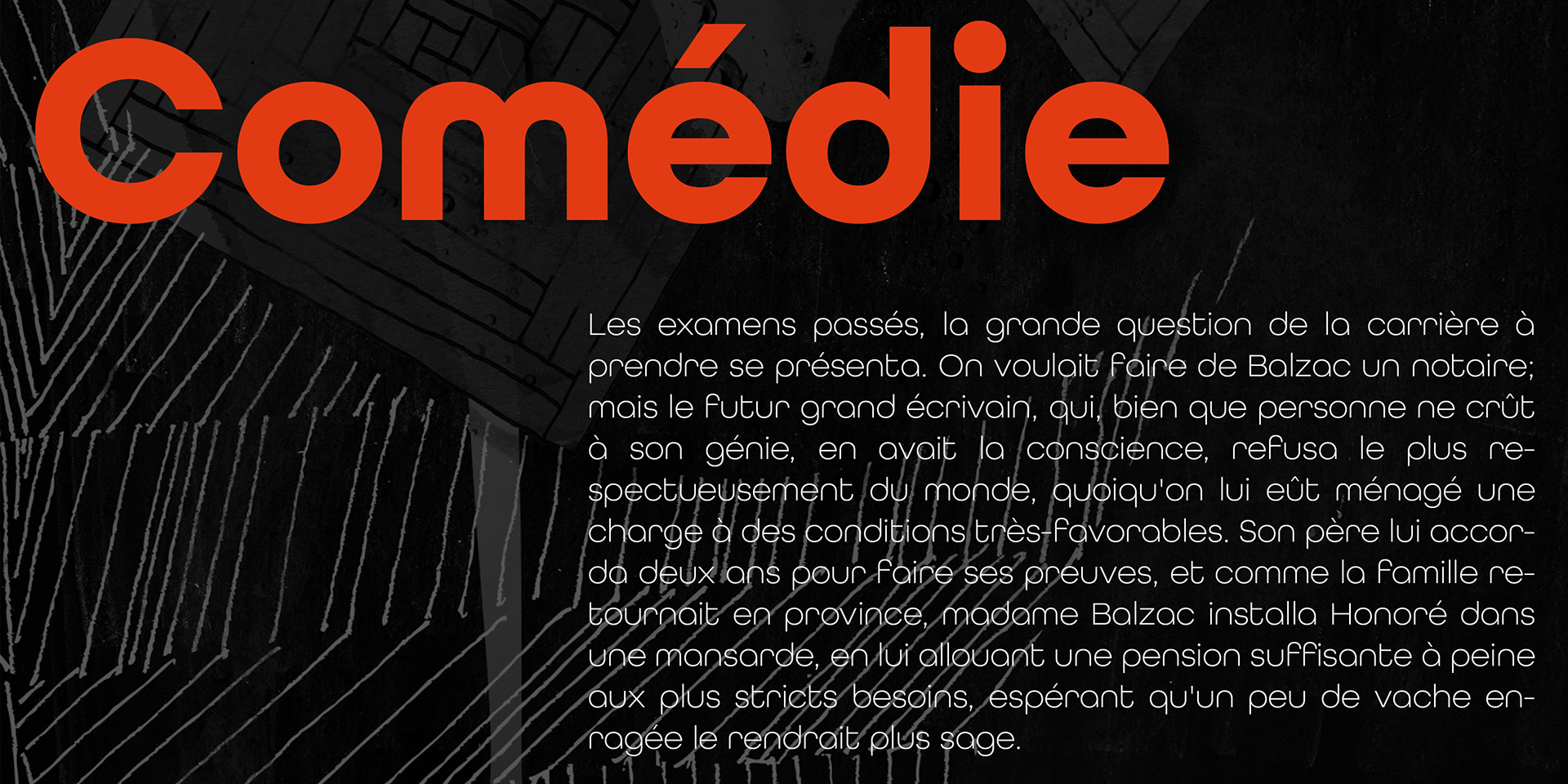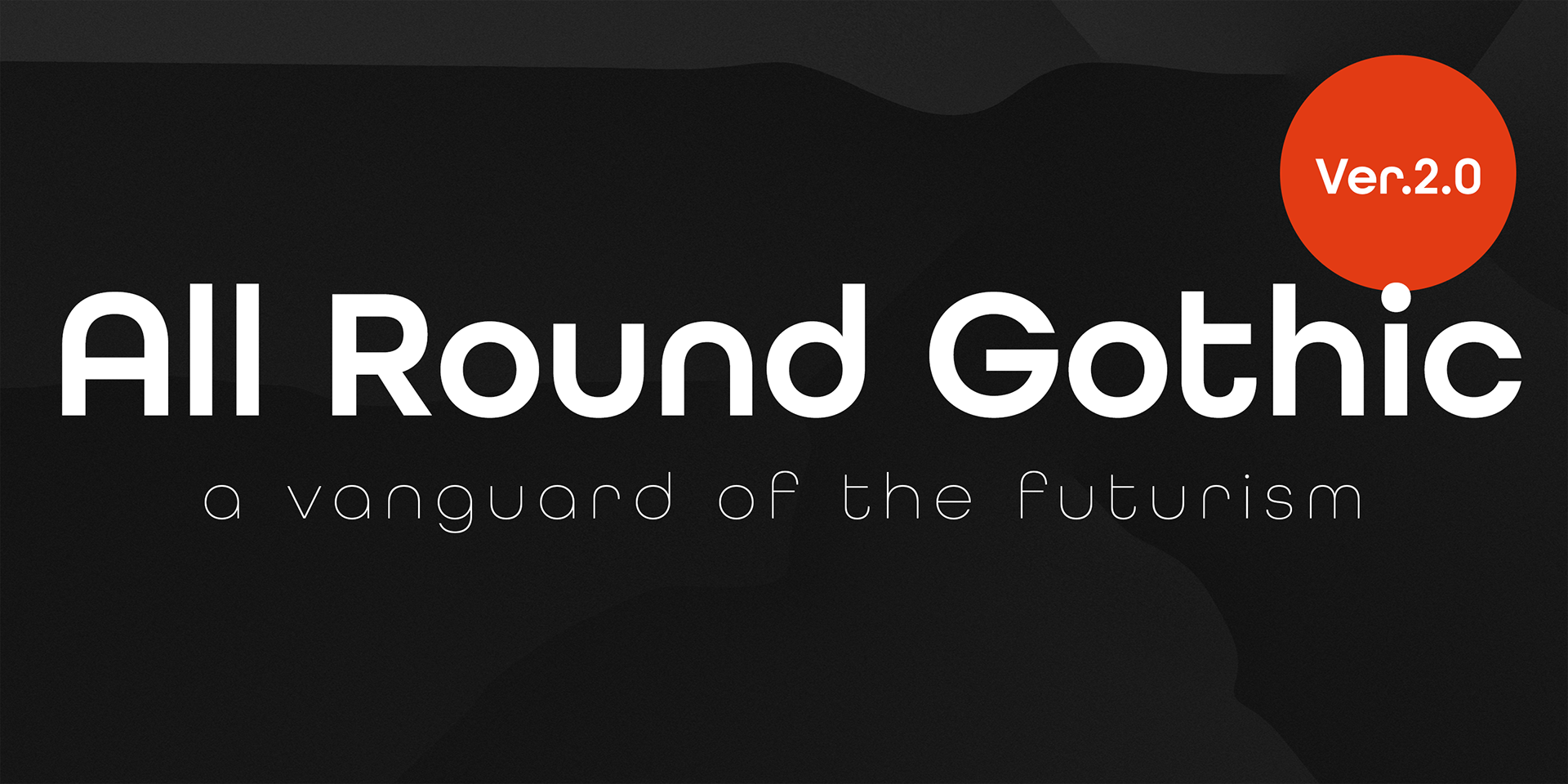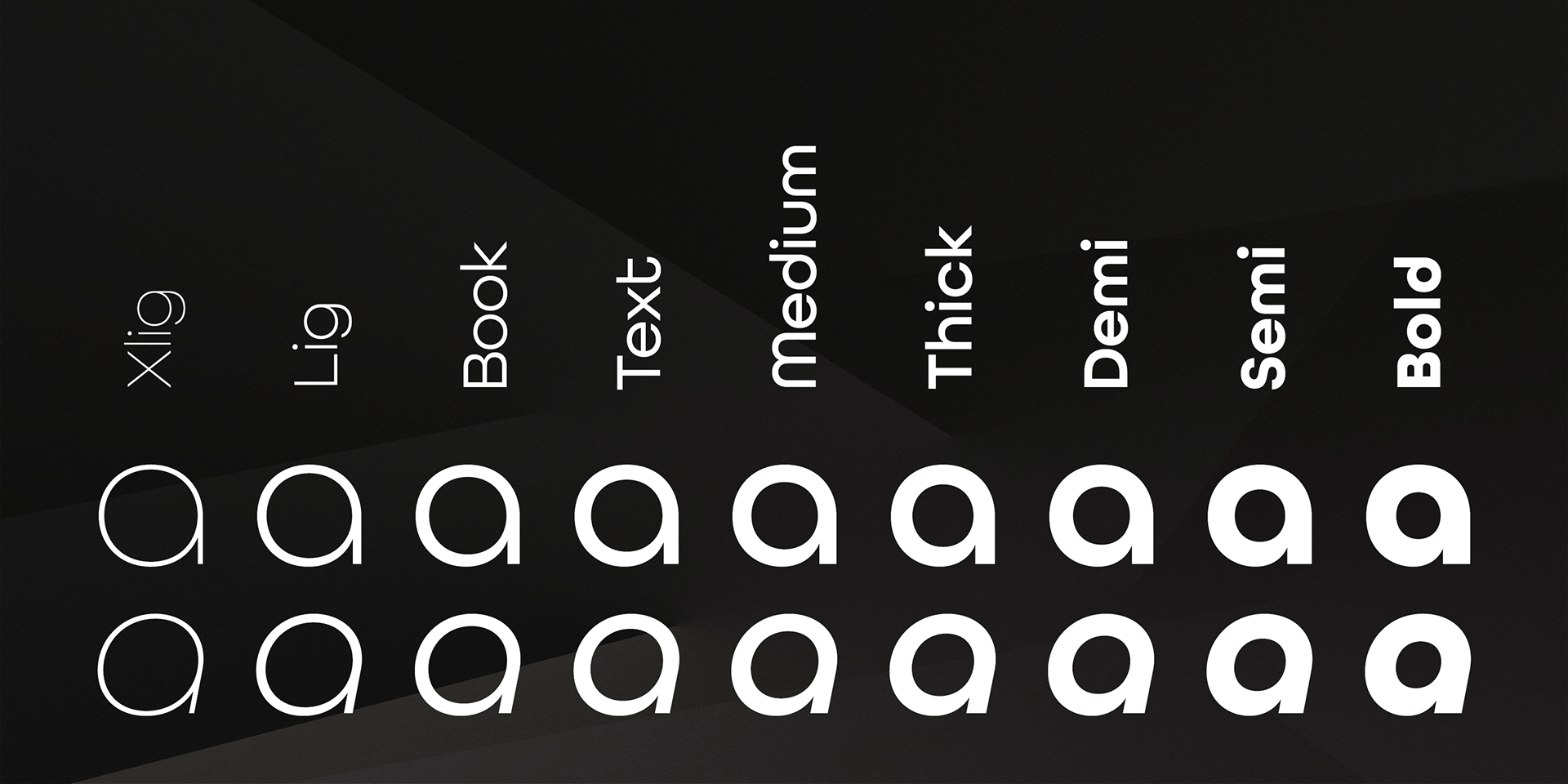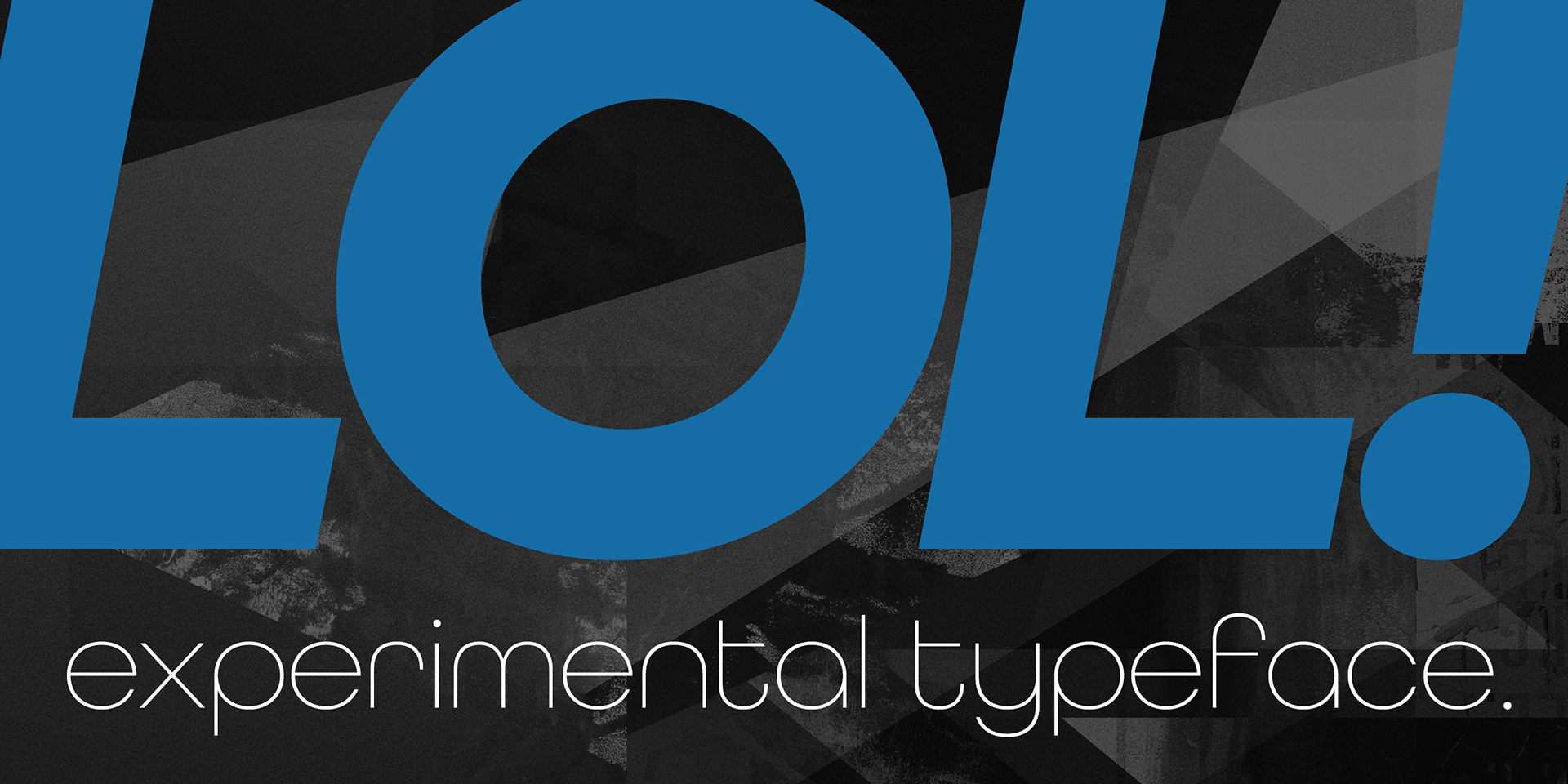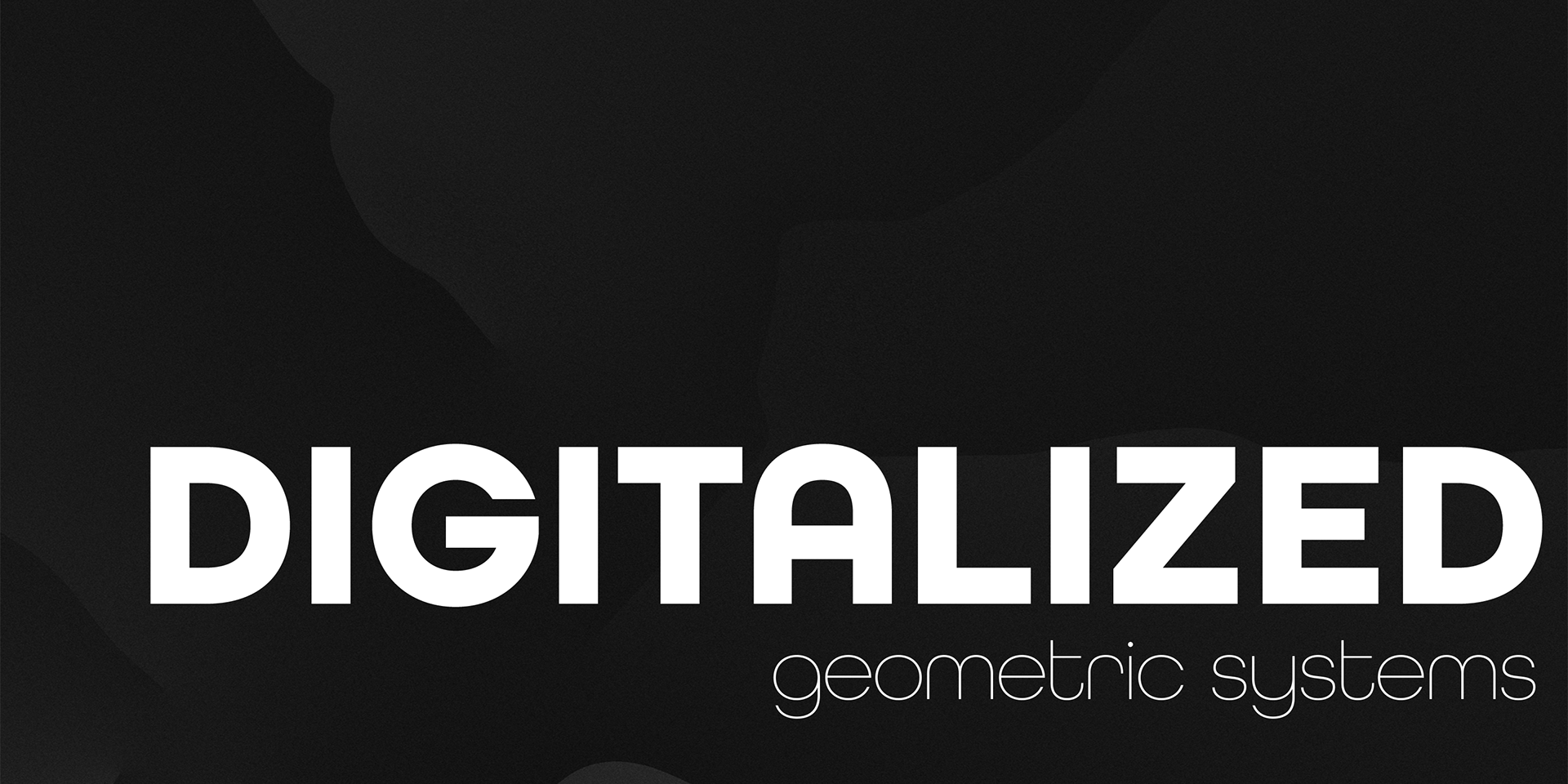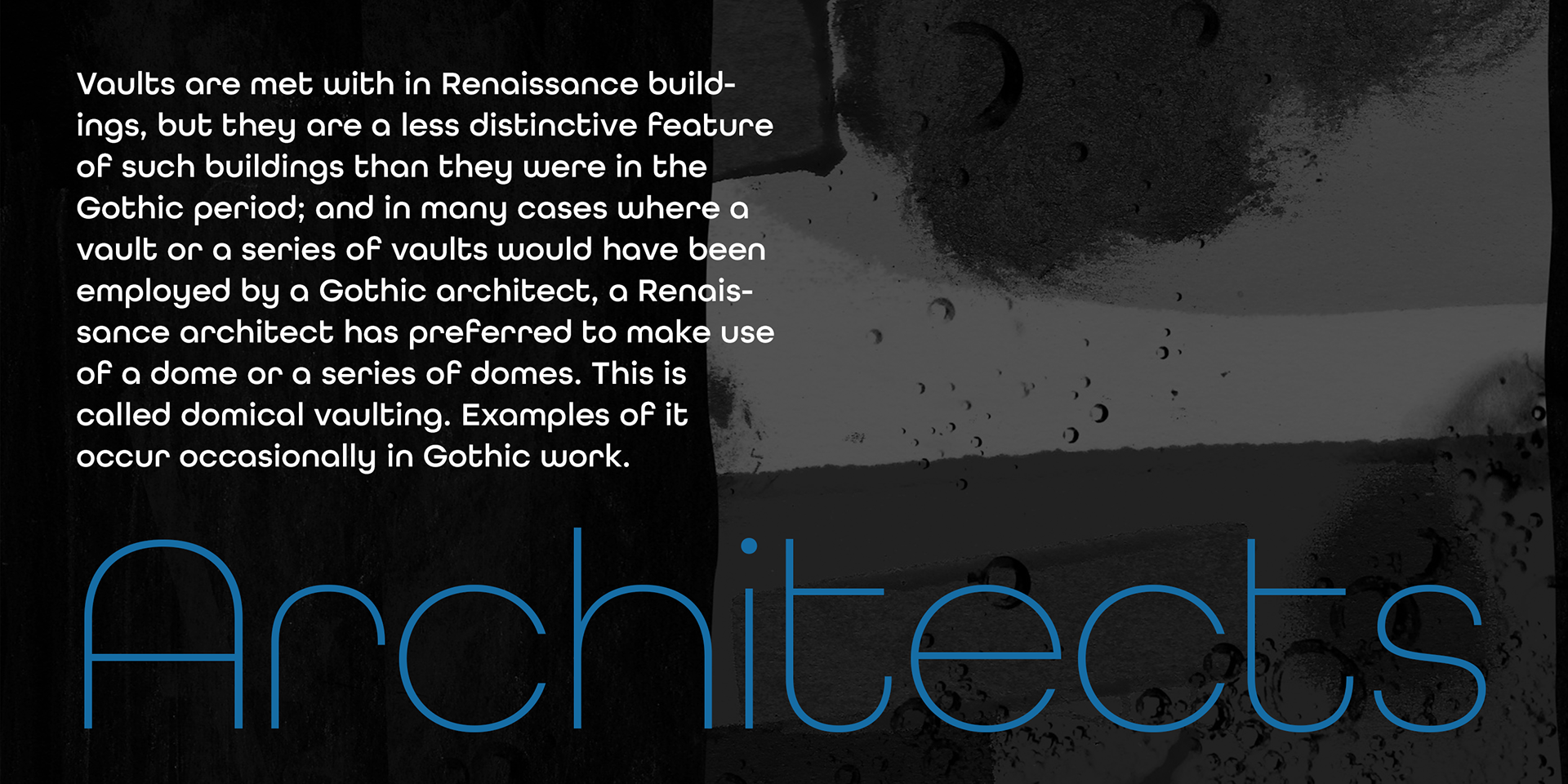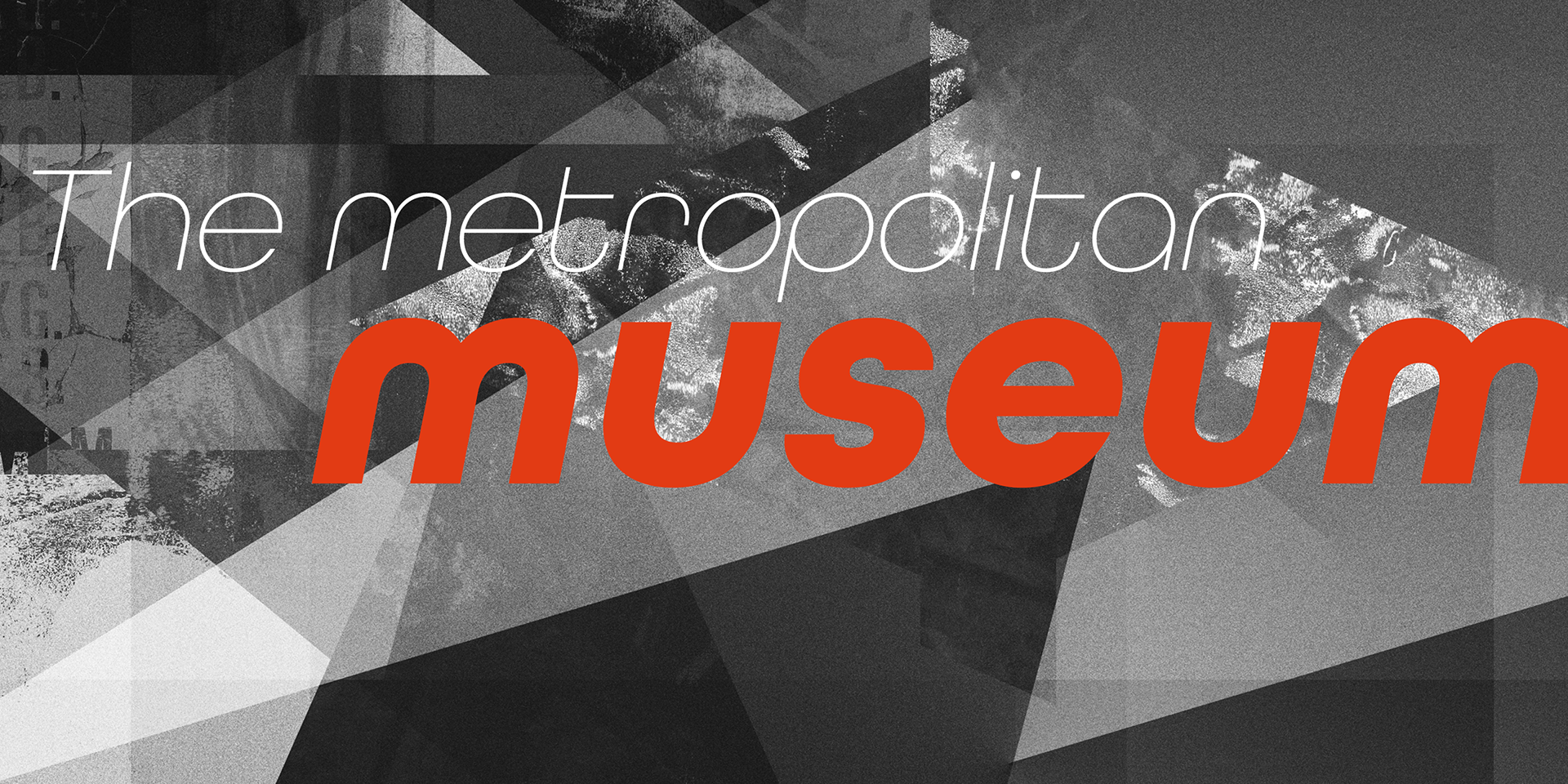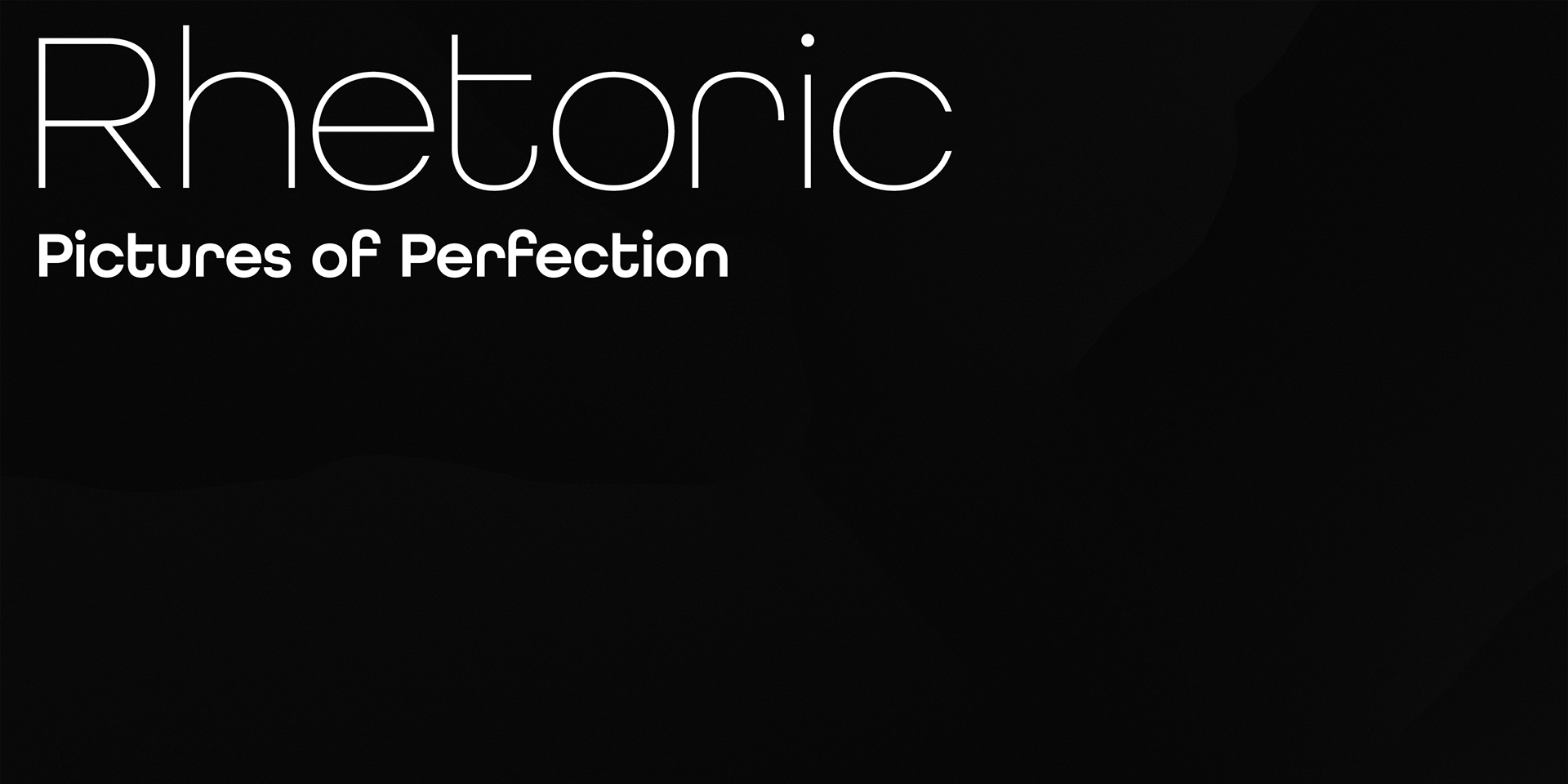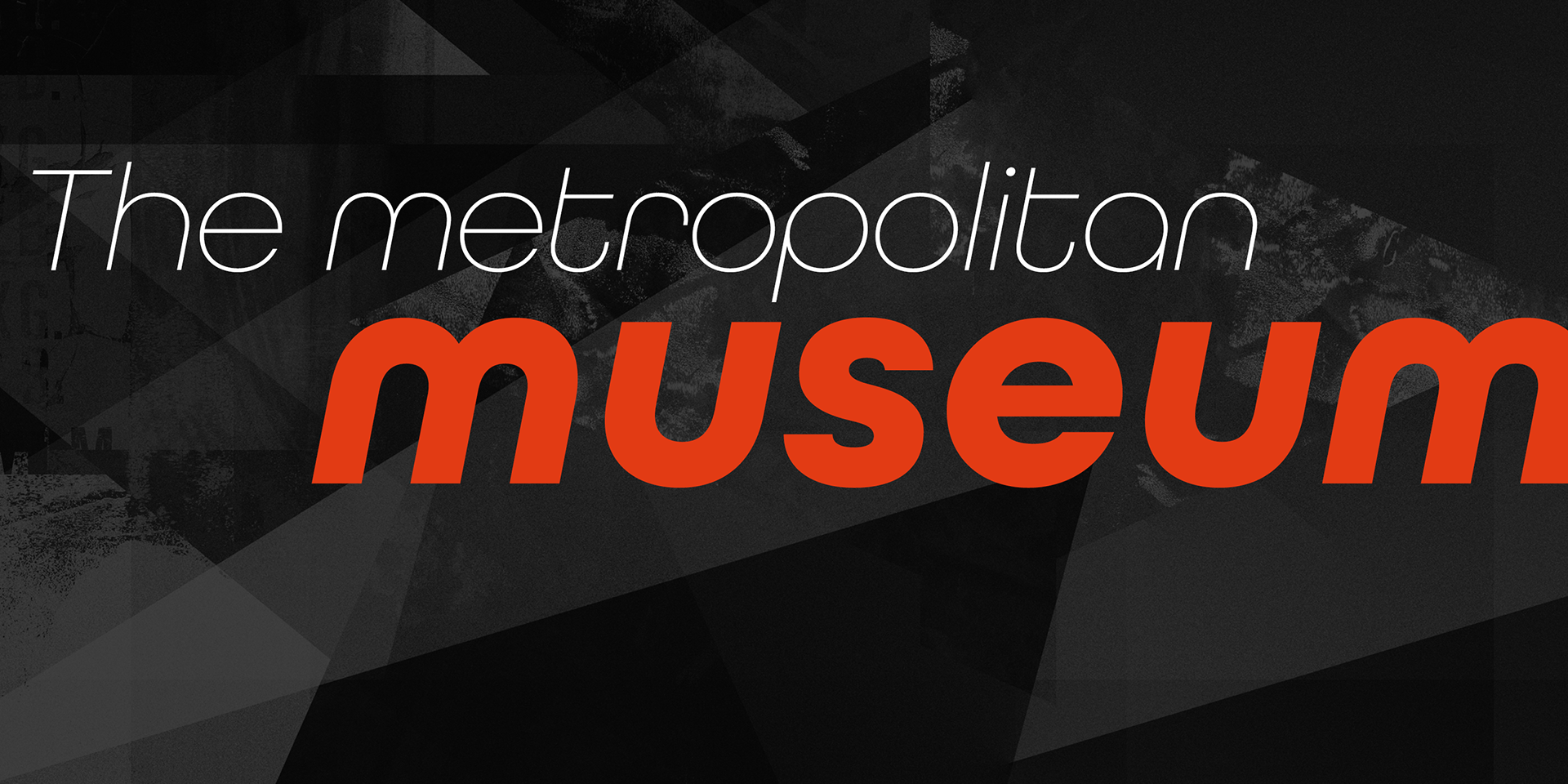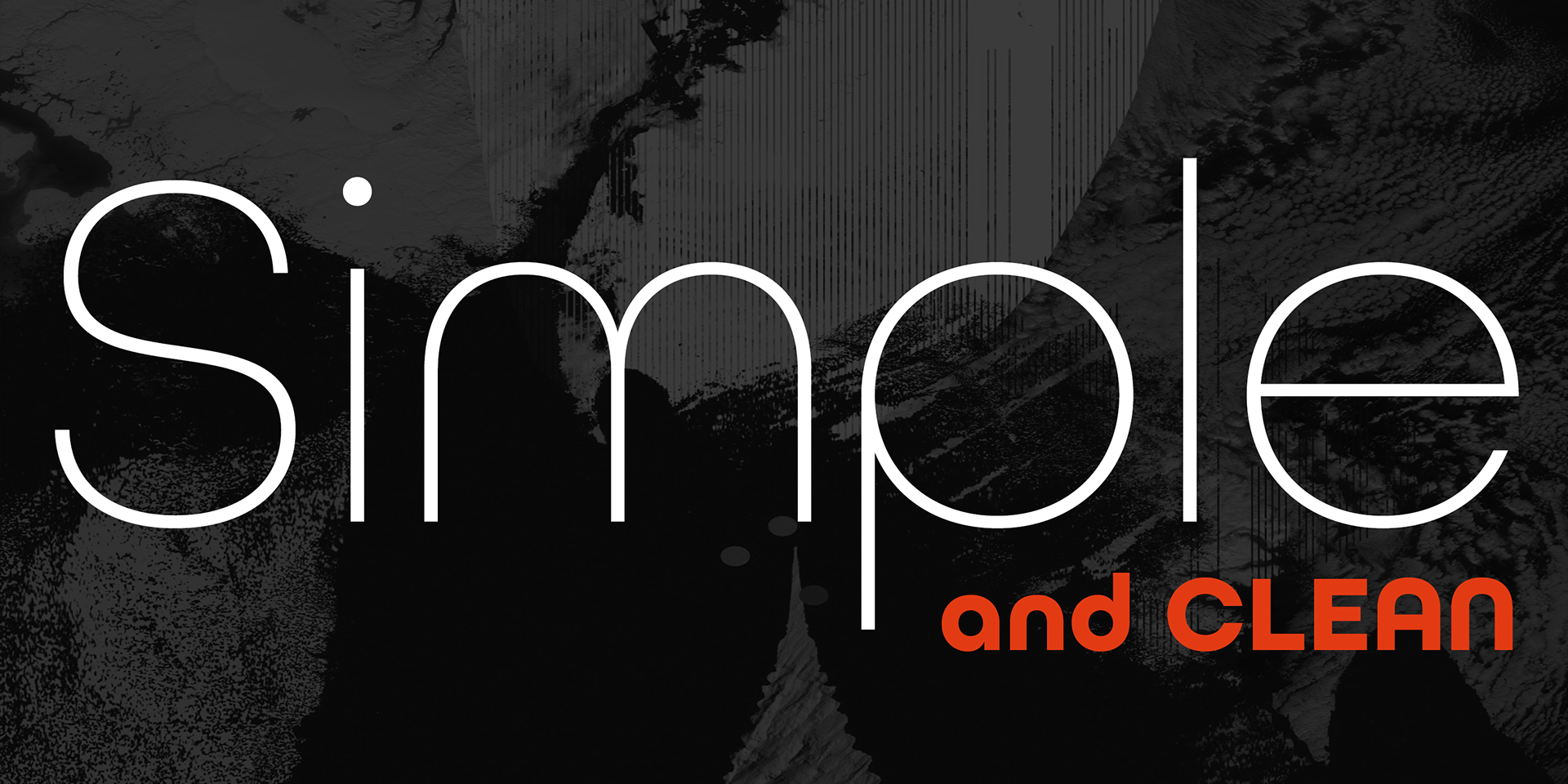
All Round Gothic
All Round Gothic is a geometric sans-serif font family originally designed in 2012 by Ryoichi Tsunekawa, inspired by classics like Avant Garde Gothic and Futura.
While rooted in structured geometry, All Round Gothic introduces a soft, friendly tone by eliminating unnecessary stems and using imperfectly circular bowls, giving it a subtle organic character.
The result is a unique blend that bridges the 1920s modernist style and contemporary design trends, making it both timeless and versatile.
With 9 weights and matching obliques, All Round Gothic is ideal for a wide range of applications—from text and headlines to logos, posters, and even animation.
Its clean yet approachable letterforms offer excellent legibility while maintaining a warm, inviting presence.
Featured in the Minions movie, All Round Gothic is a great choice when you're looking for a fresh alternative to traditional sans serifs.